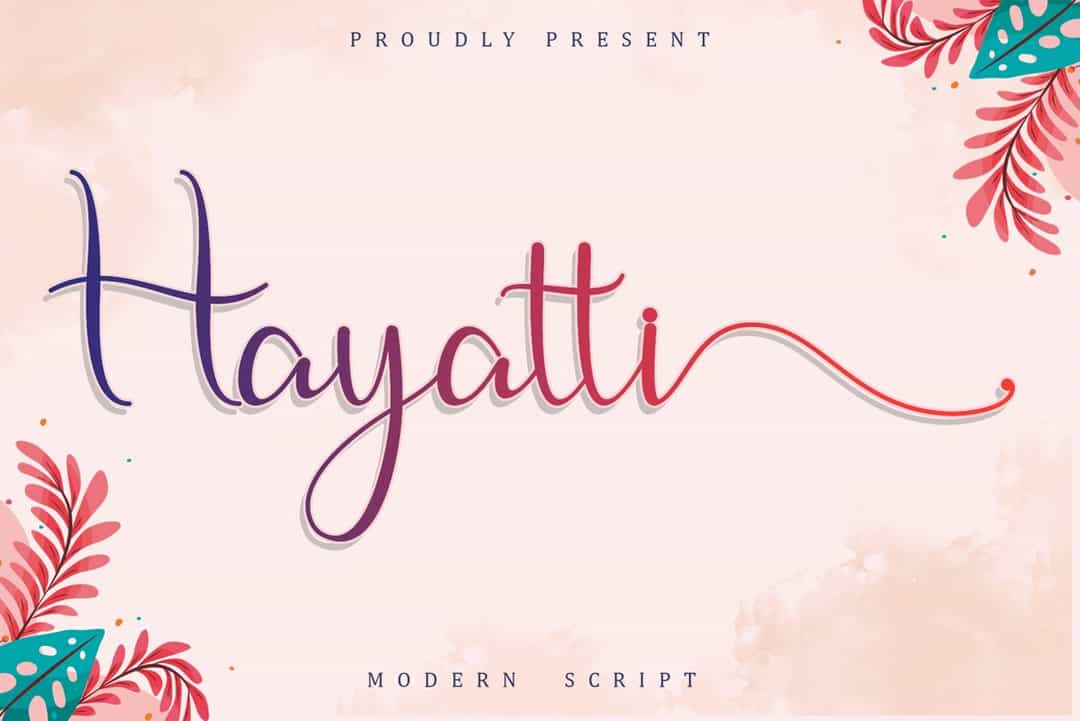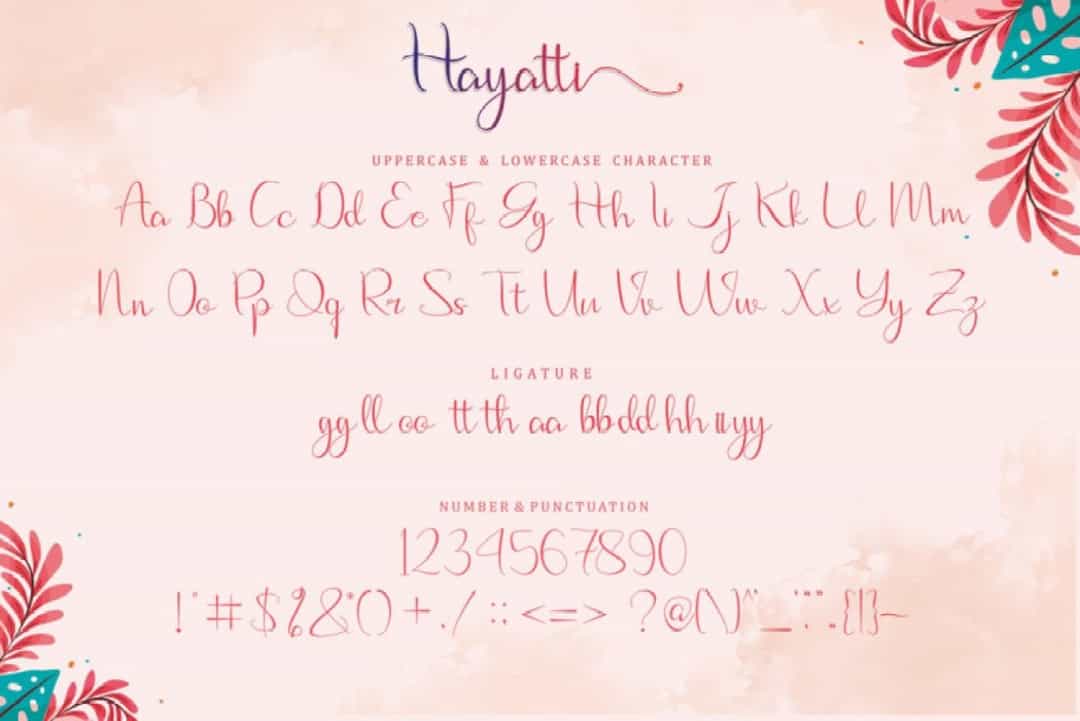
Hayatti is a new handwritten calligraphy font that you can use to give your branding and other writing a sophisticated touch. Great for adding to images as overlays, for watermarks, for greeting cards, posters, invitations, business cards, invitations for wedding, for the wedding photographs, for clothing, for letters, for stationery and so on.